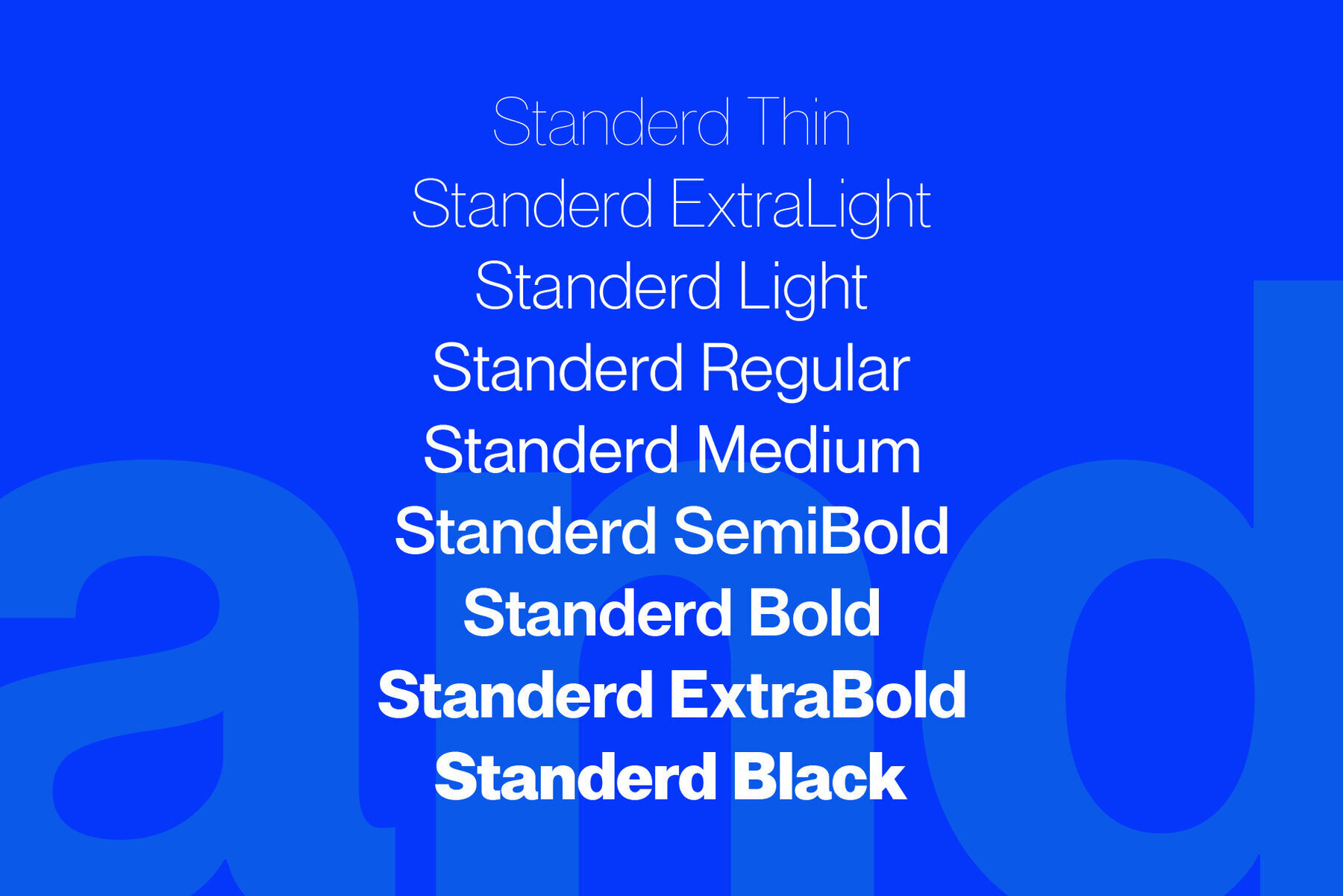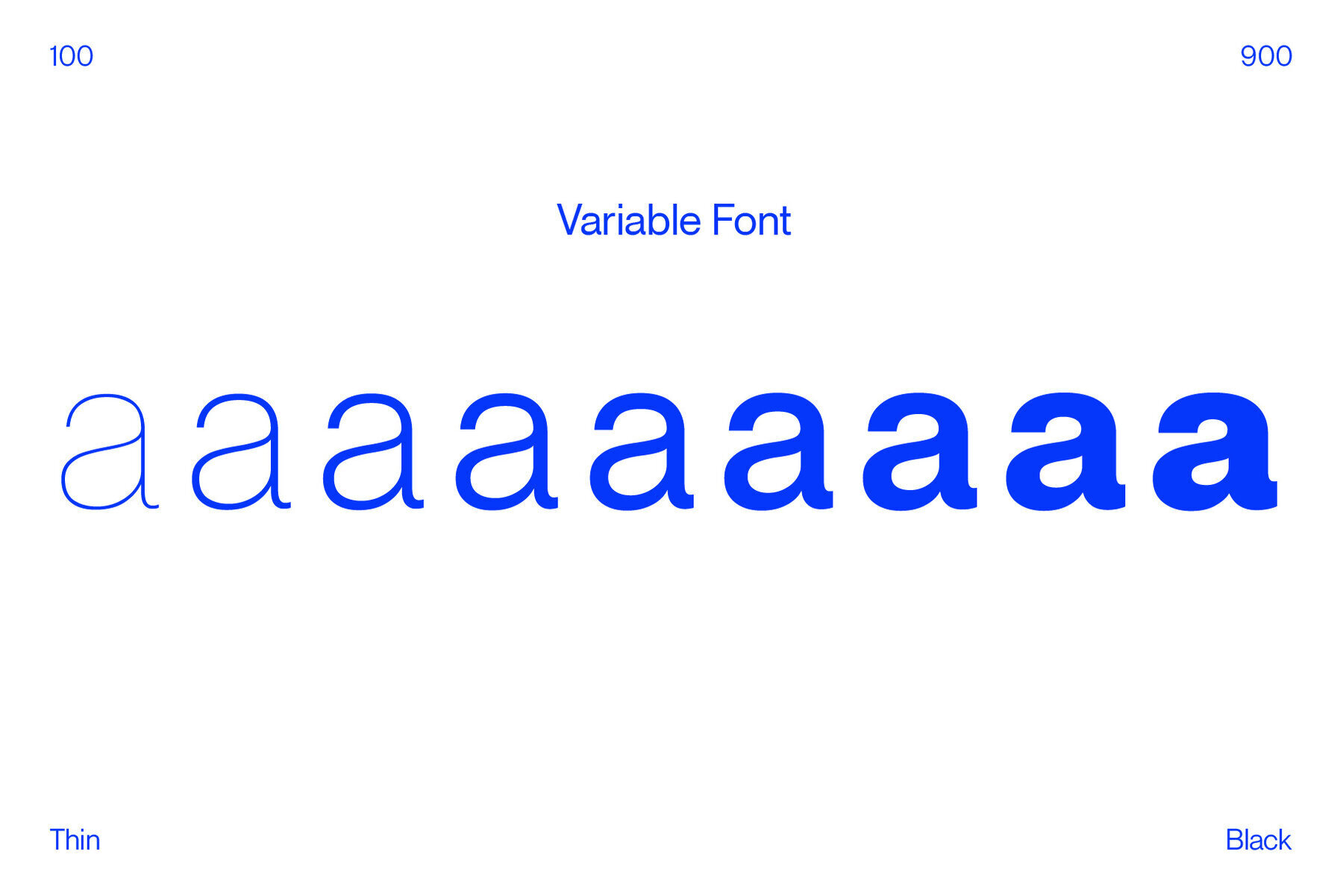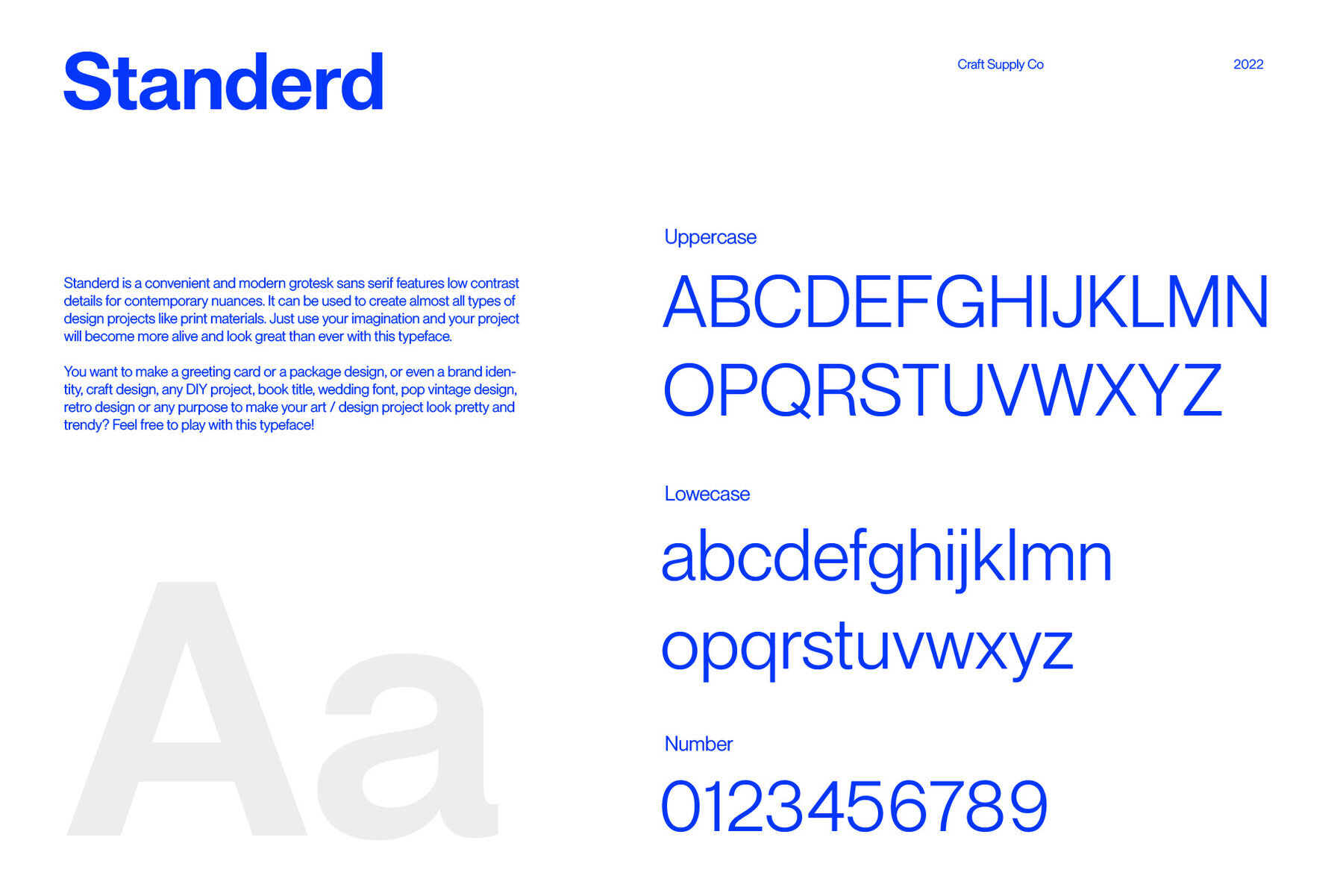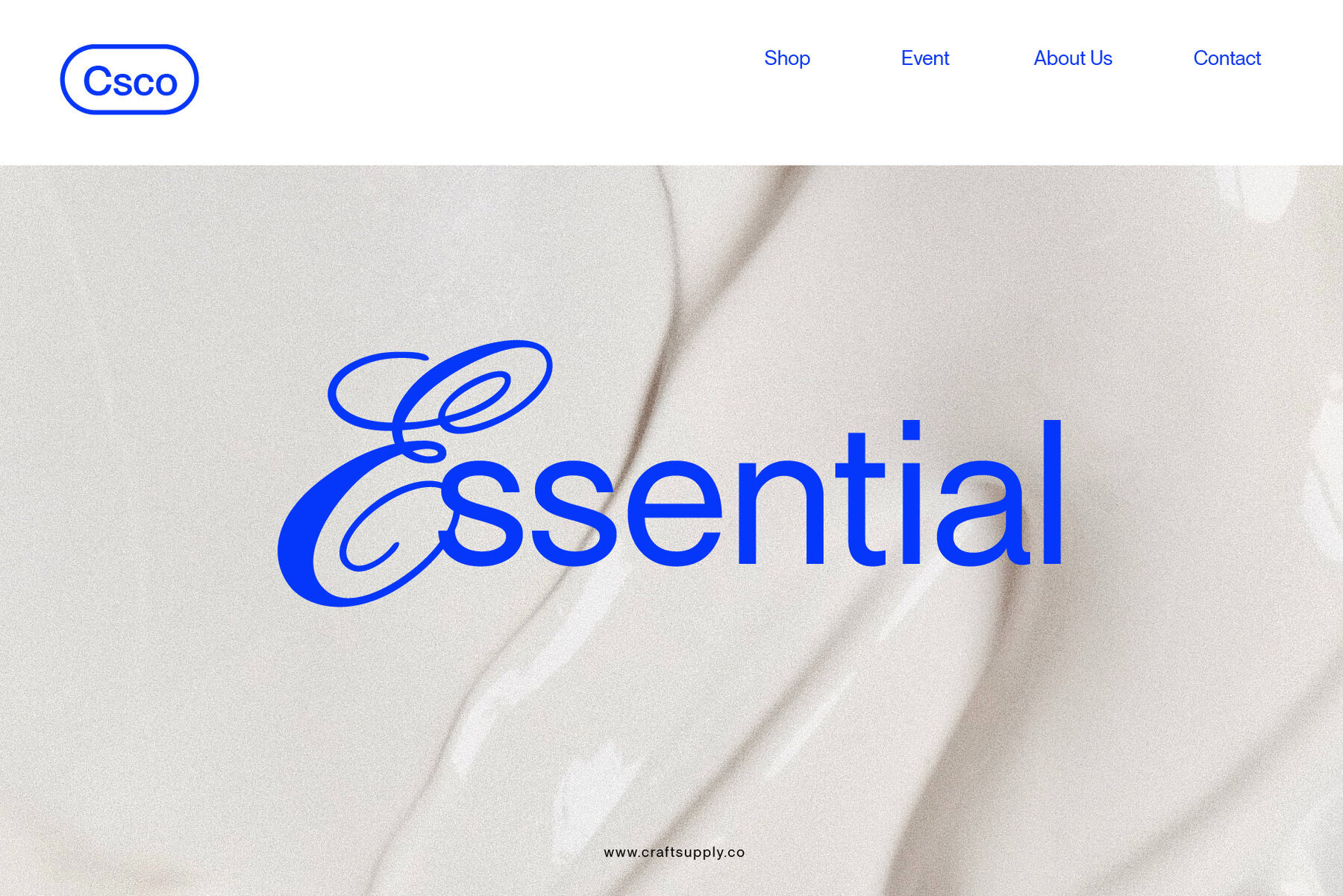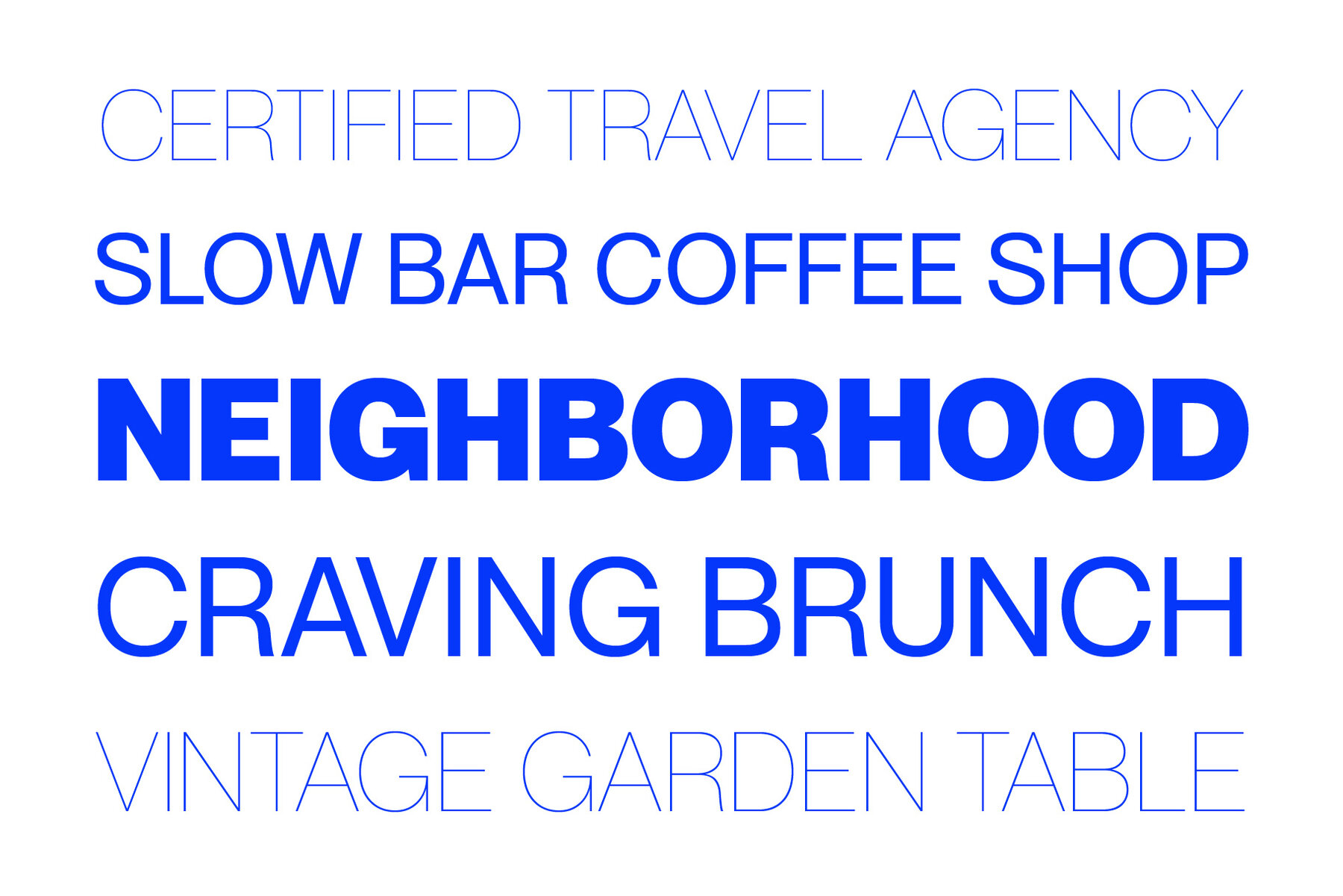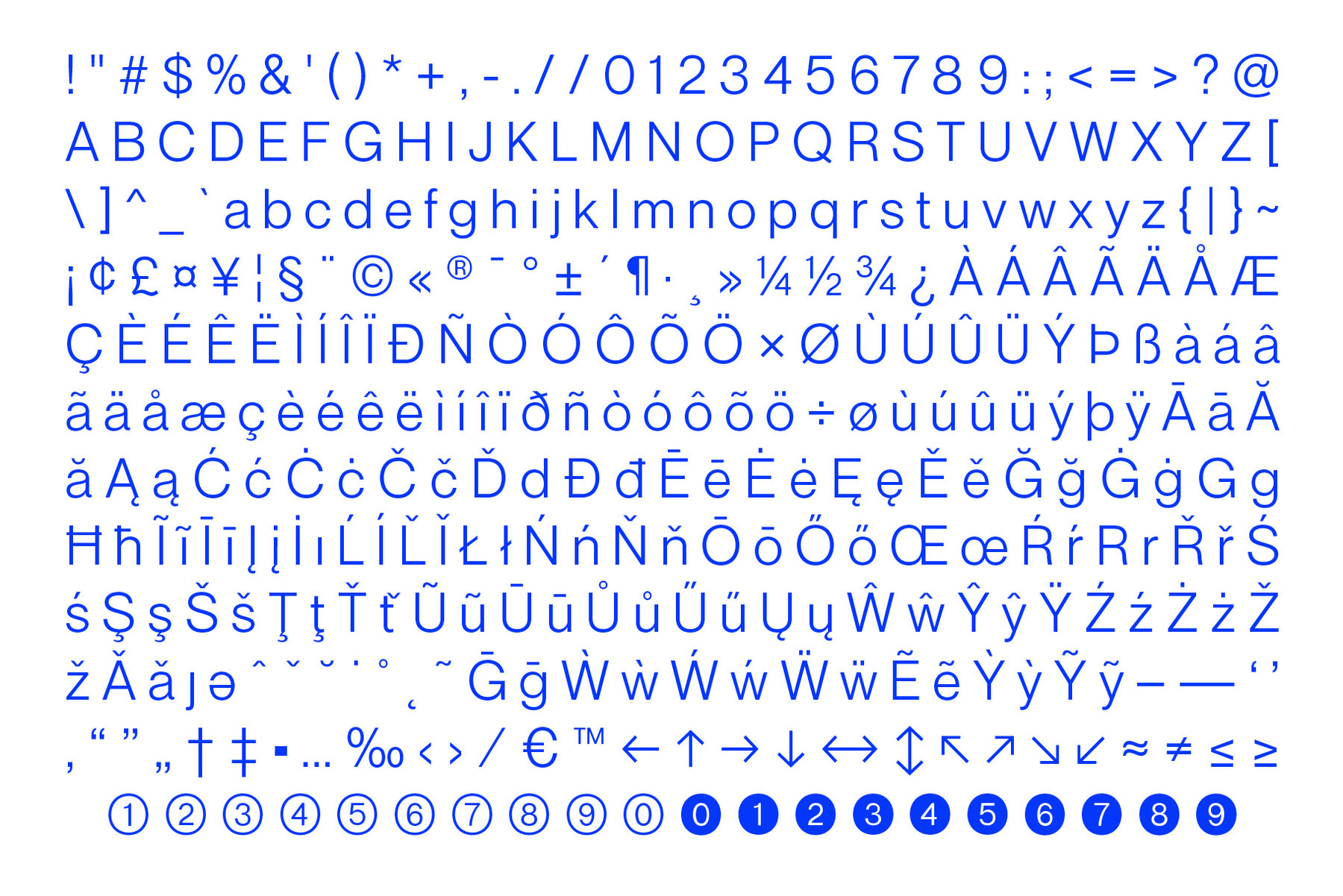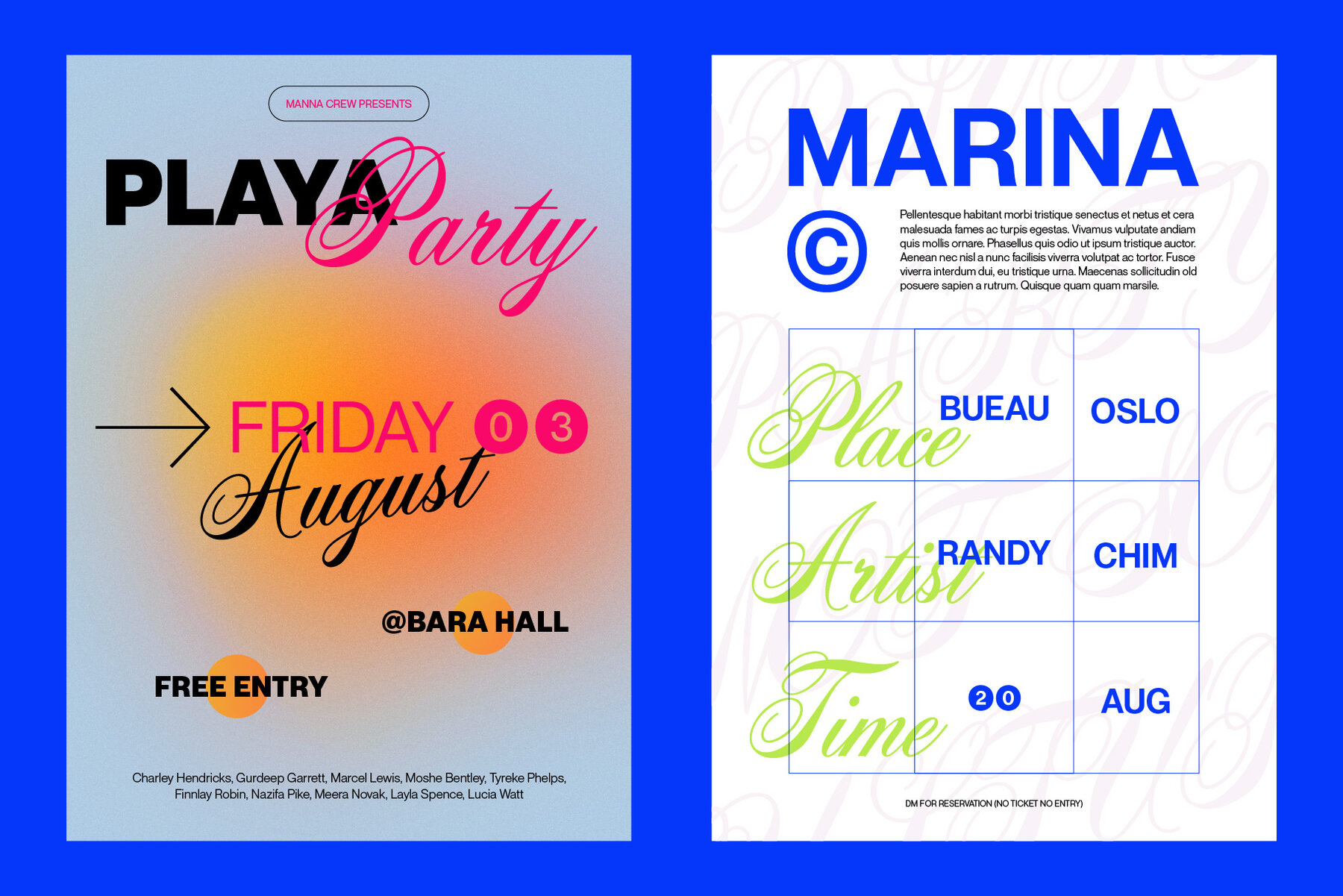
Standerd Font
Standerd is a convenient and modern grotesk sans serif features low contrast details to cover small text purposes. It can be used to create almost all types of design projects like print materials. Just use your imagination and your project will become more alive and look great than ever with this typeface. Standerd includes both variable and static version, one stop solution for big and small text purposes.